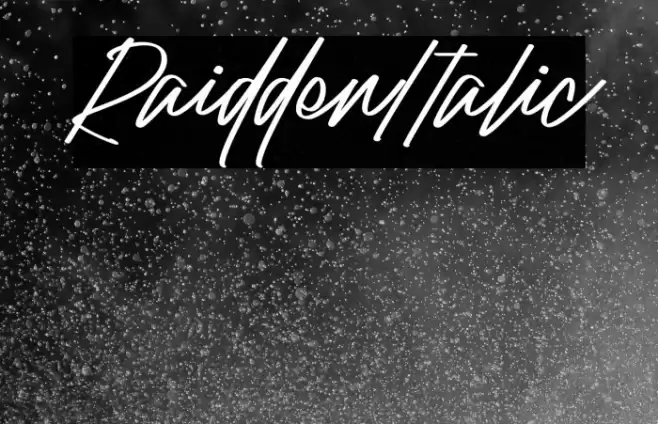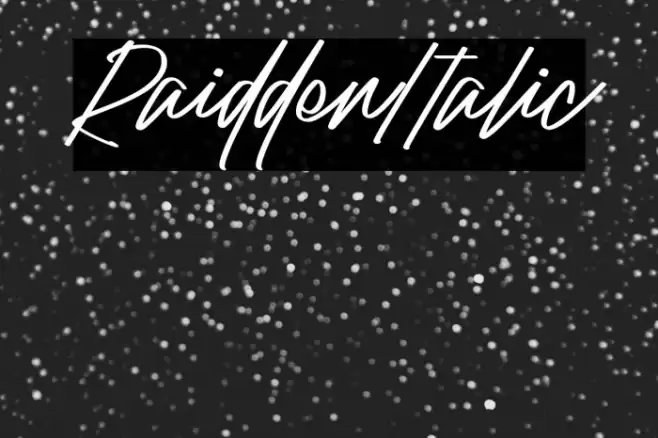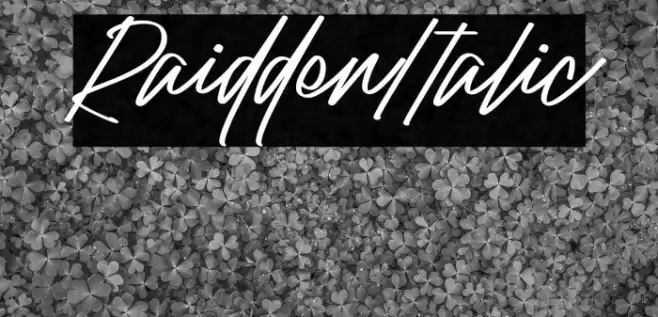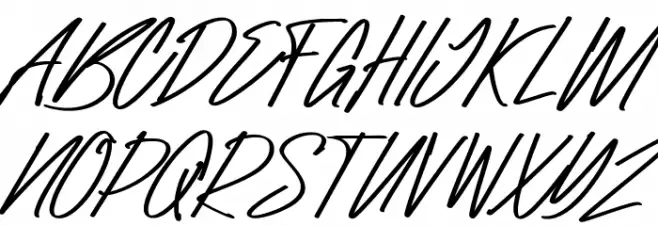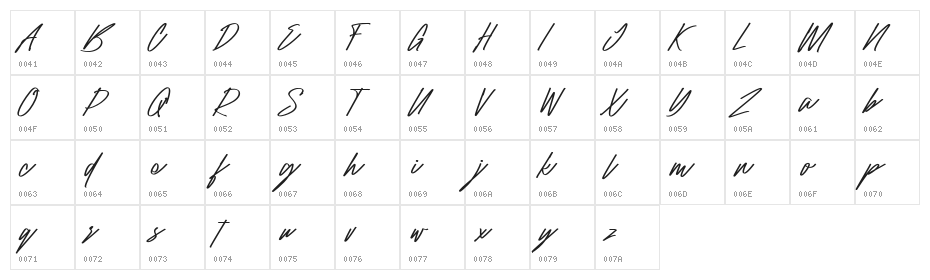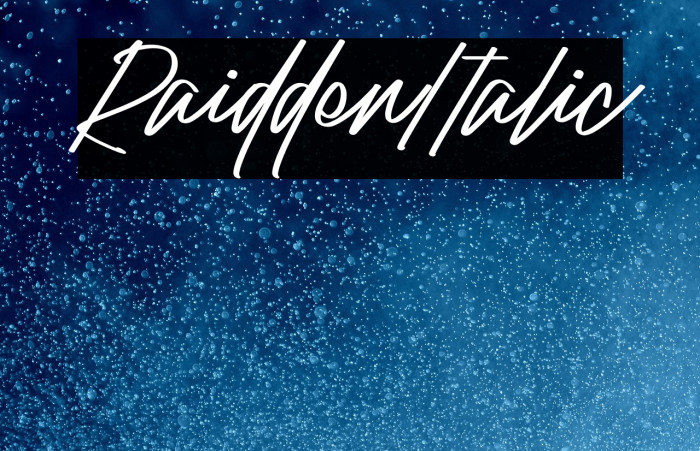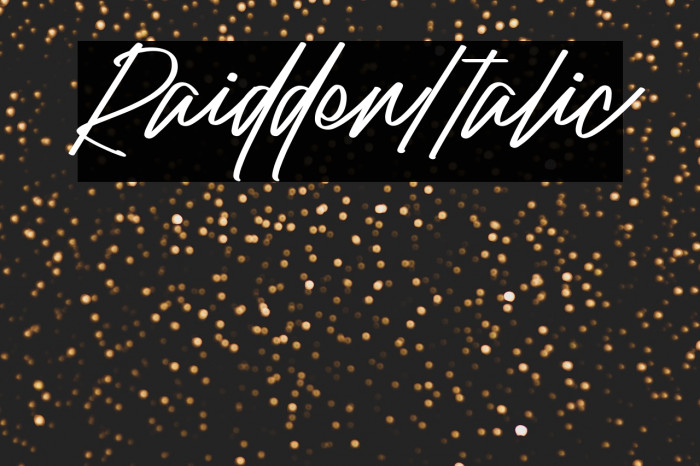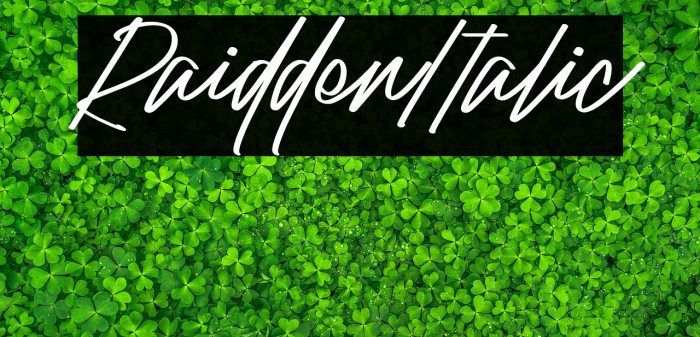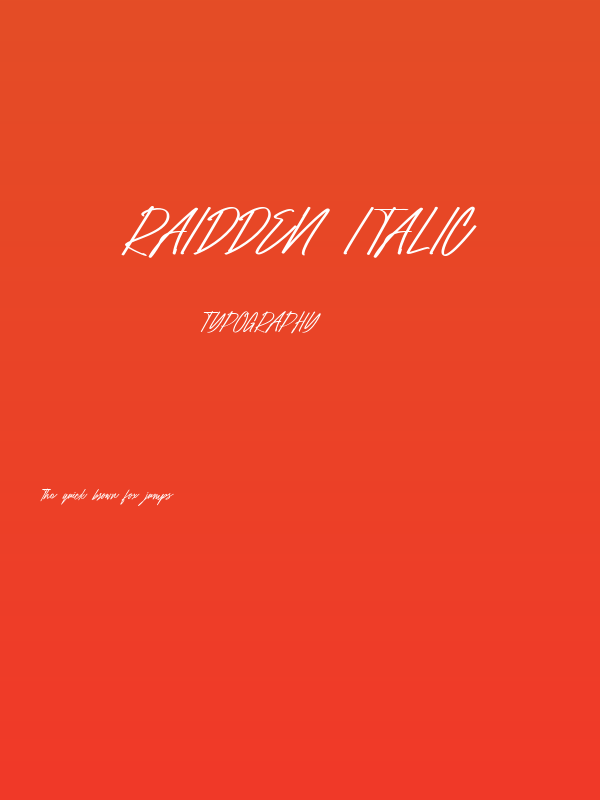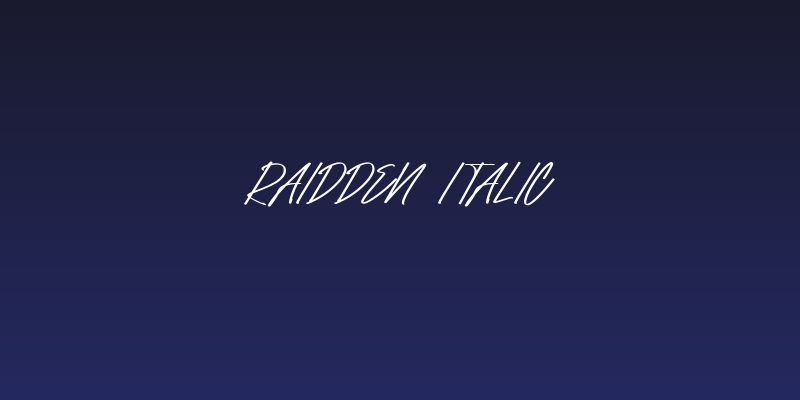
Raidden Italic Font
Raidden Italic Description
This font exudes a dynamic and energetic style, characterized by its slanted, italicized form. The strokes are fluid and expressive, giving a sense of movement and spontaneity. Each letter is crafted with a sense of urgency and flair, making it ideal for projects that require a touch of personality and vigor. The uppercase and lowercase letters maintain a consistent style, with elongated and slightly exaggerated forms that enhance its visual impact. The numbers and special characters are equally expressive, ensuring a cohesive look across all text elements.
A dynamic, italicized script font with fluid, expressive strokes from Uncategorized fonts.
- Proposed Projects: Ideal for branding, fashion editorials, dynamic posters, and creative advertising campaigns.